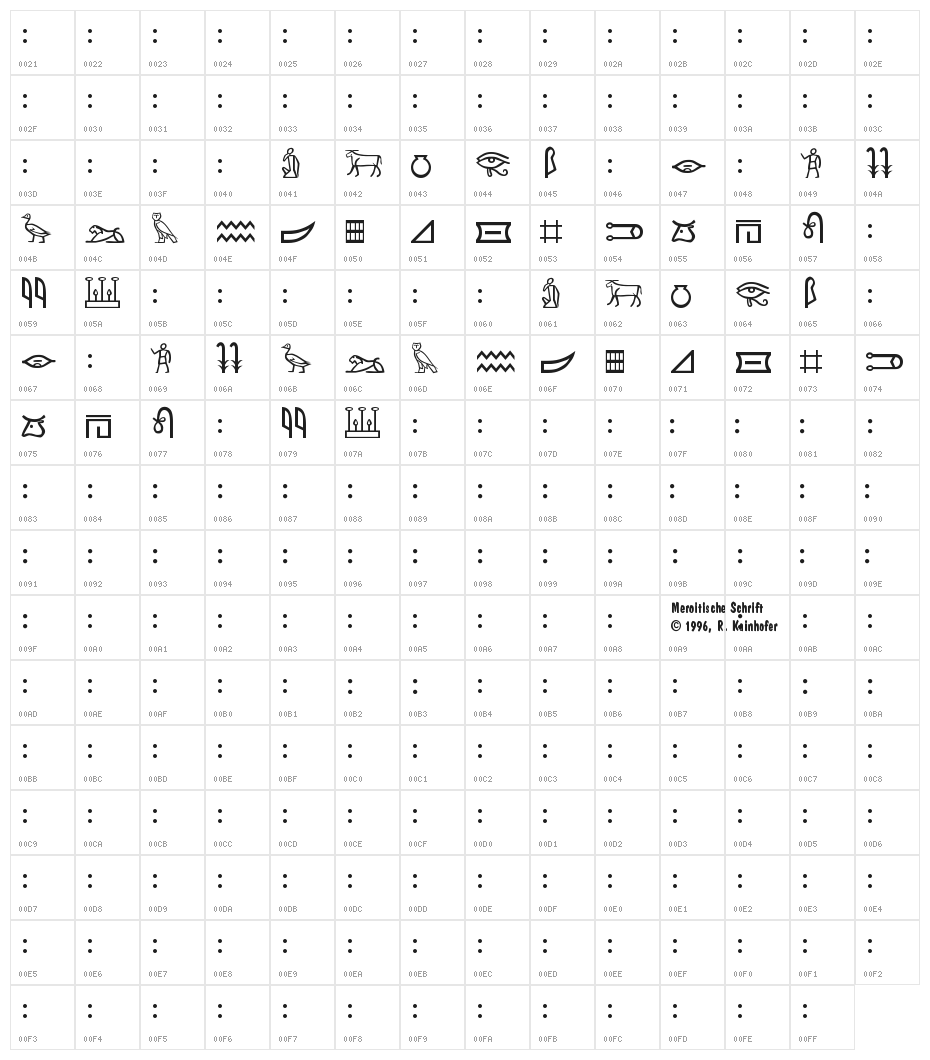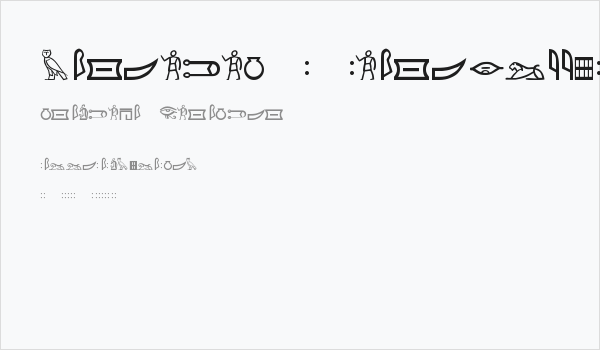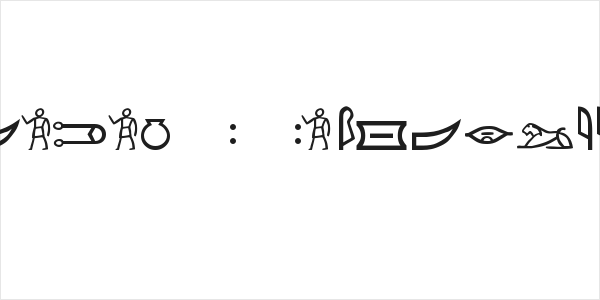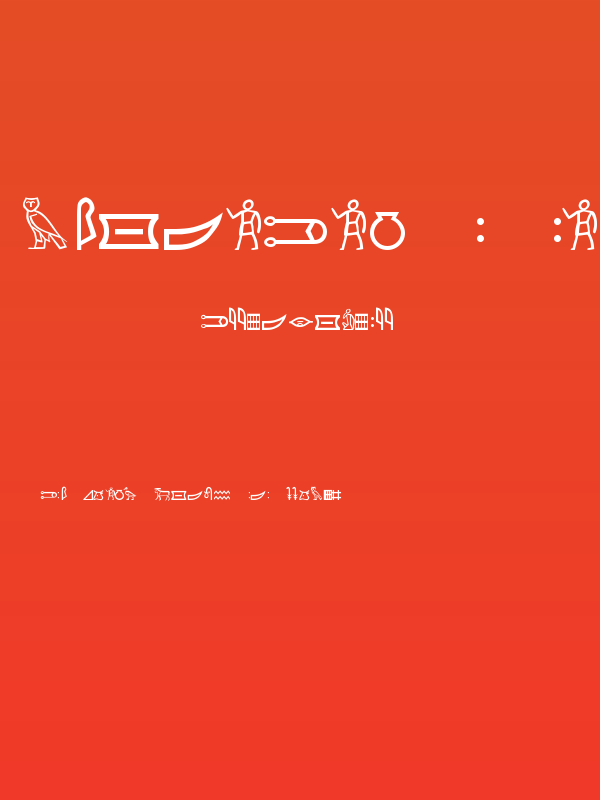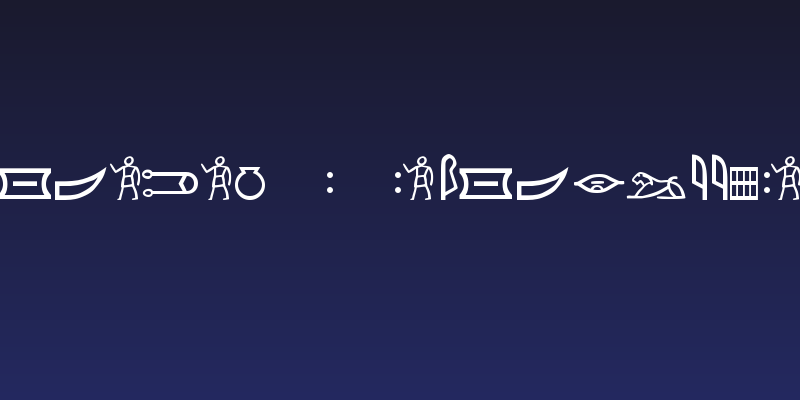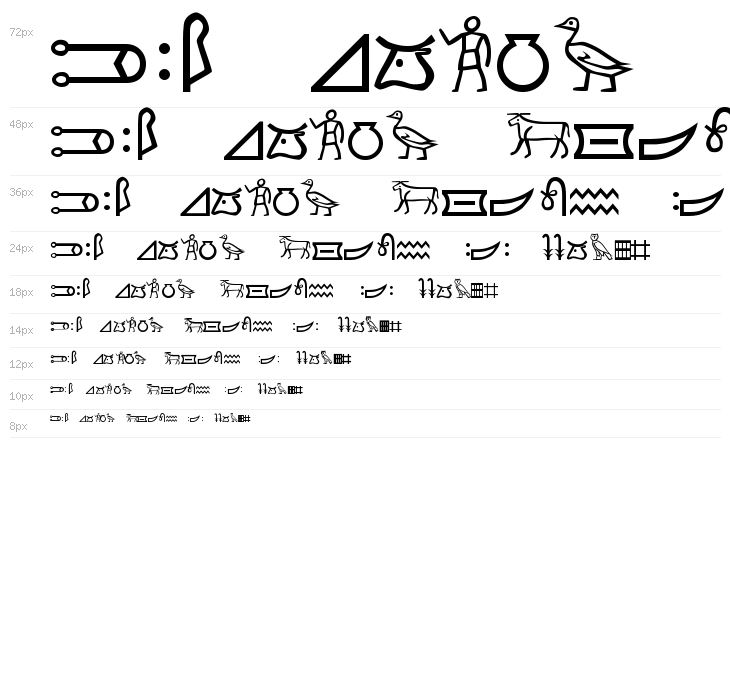
Meroitic - Hieroglyphics Font
Meroitic - Hieroglyphics Description
A decorative script featuring ancient hieroglyphic symbols and pictograms, with intricate and varied shapes representing animals, objects, and abstract forms. The characters are highly stylized and non-alphabetic, evoking historical and archaeological aesthetics.
| Overall Style | Decorative, Ancient, Historical |
| Use Case | Display, Thematic graphics, Educational headings |
| Proposed Projects | Historical displays, museum graphics, educational materials, themed posters, archaeological reconstructions. |